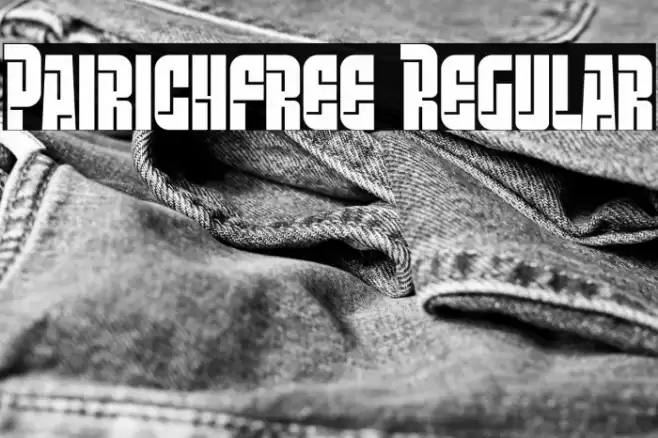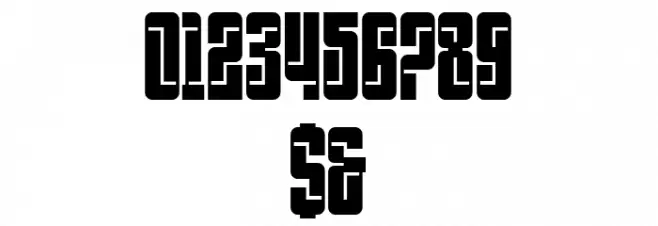
Pairich-free Regular Font
Pairich-free Regular Description
This font features a bold and striking design with a strong geometric influence. The characters are blocky and robust, with a distinct industrial feel. The uppercase letters are particularly imposing, with thick vertical and horizontal strokes that create a sense of solidity and strength. The lowercase letters maintain the same boldness, ensuring consistency across the typeface. The numbers are equally bold, making them stand out prominently. Special characters like the dollar sign and ampersand are designed with the same attention to detail, ensuring they fit seamlessly with the rest of the font. Overall, this font is perfect for making a strong visual impact.
A bold, geometric font with an industrial and robust design from Regular fonts.
- Proposed Projects: Ideal for posters, logos, branding, and any project requiring a strong visual impact.